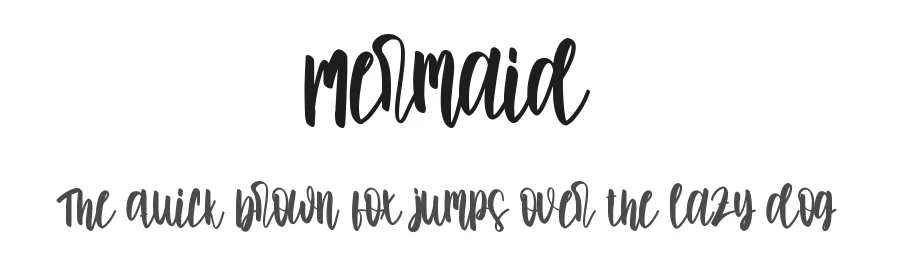
About Spring Comedy Script Font
Spring Comedy Script Specifications
| Font Family | Spring Comedy Demo Script |
| Full Name | Spring Comedy Demo Script |
| Glyph Count | 207 glyphs |
| PostScript Name | SpringComedyDemoScript |
| Designer | Widiyanti & Suci Anita |
Spring Comedy Script supports 211 languages.
Spring Comedy Script Font is a script font that shines as a display or heading face. Pair it with a clean sans-serif or serif font for body text β the contrast creates a clear hierarchy while the two styles stay balanced and easy to read.
Spring Comedy Script Font
by Noah Type